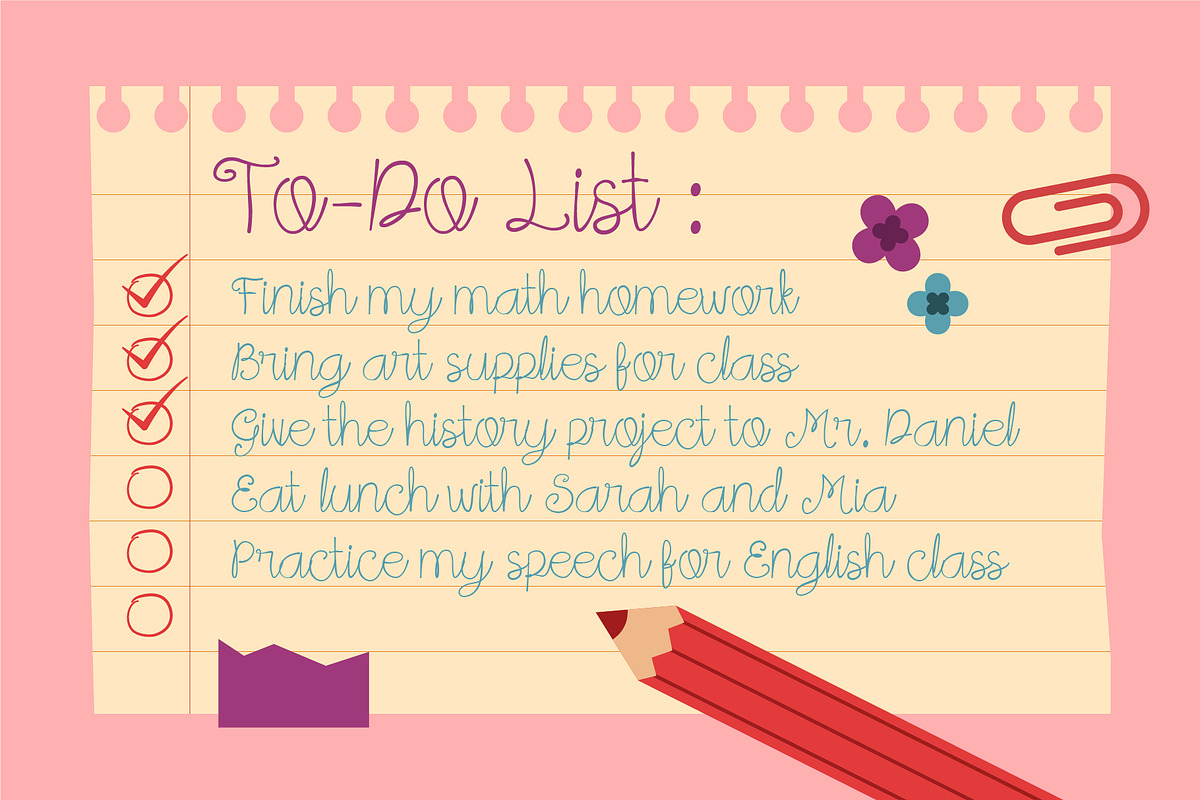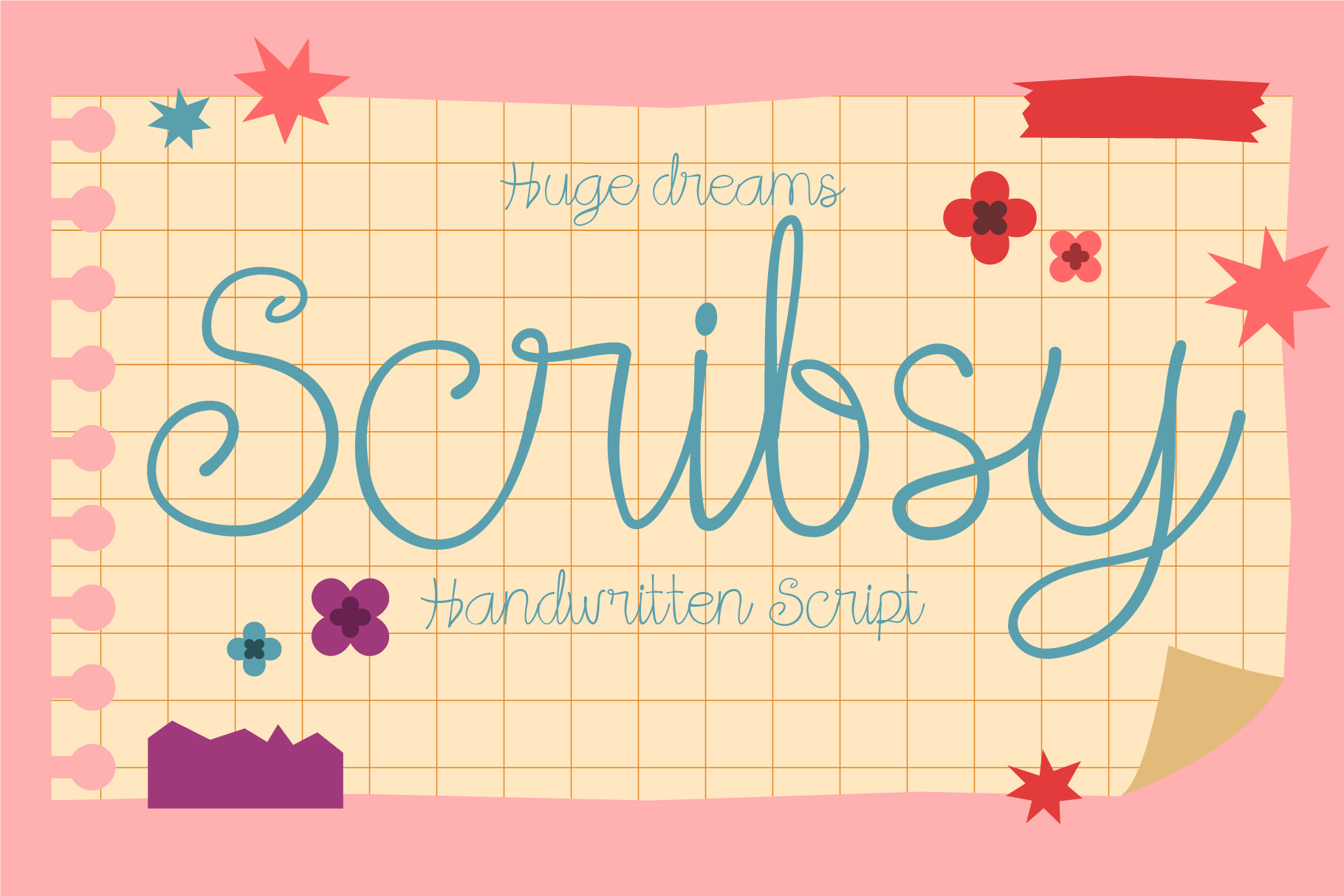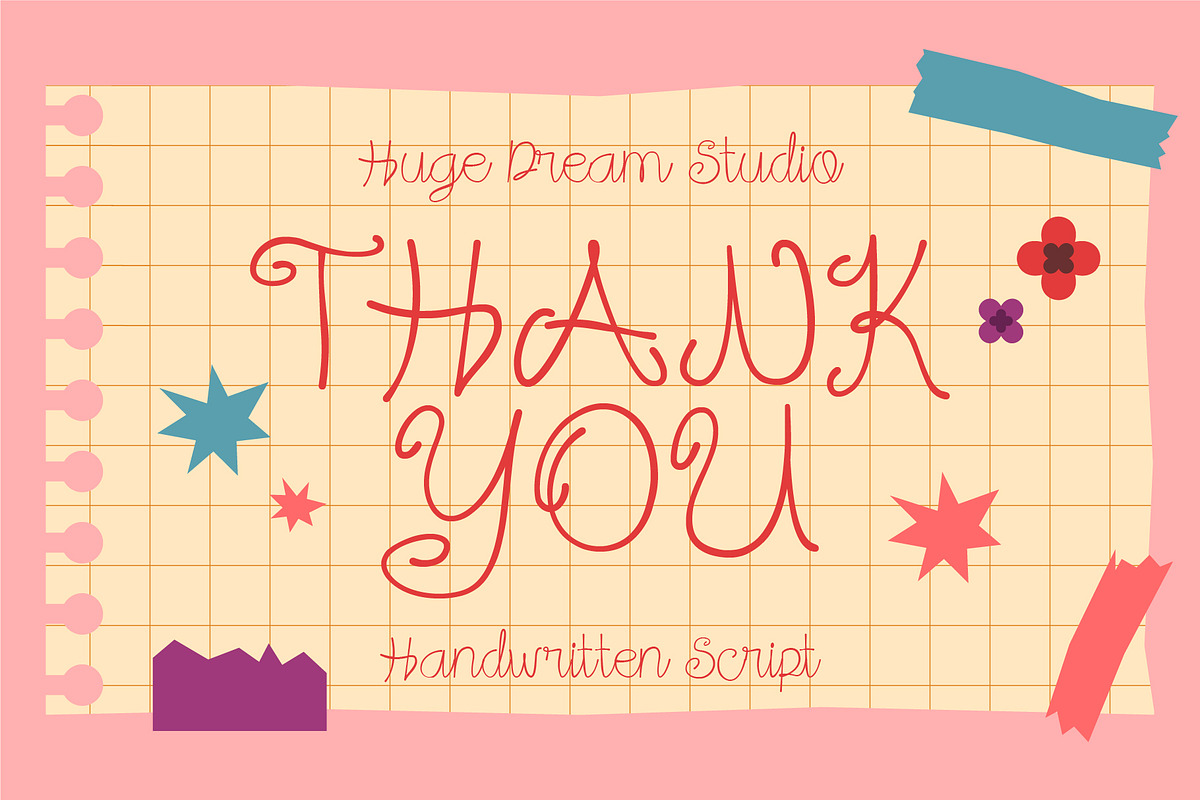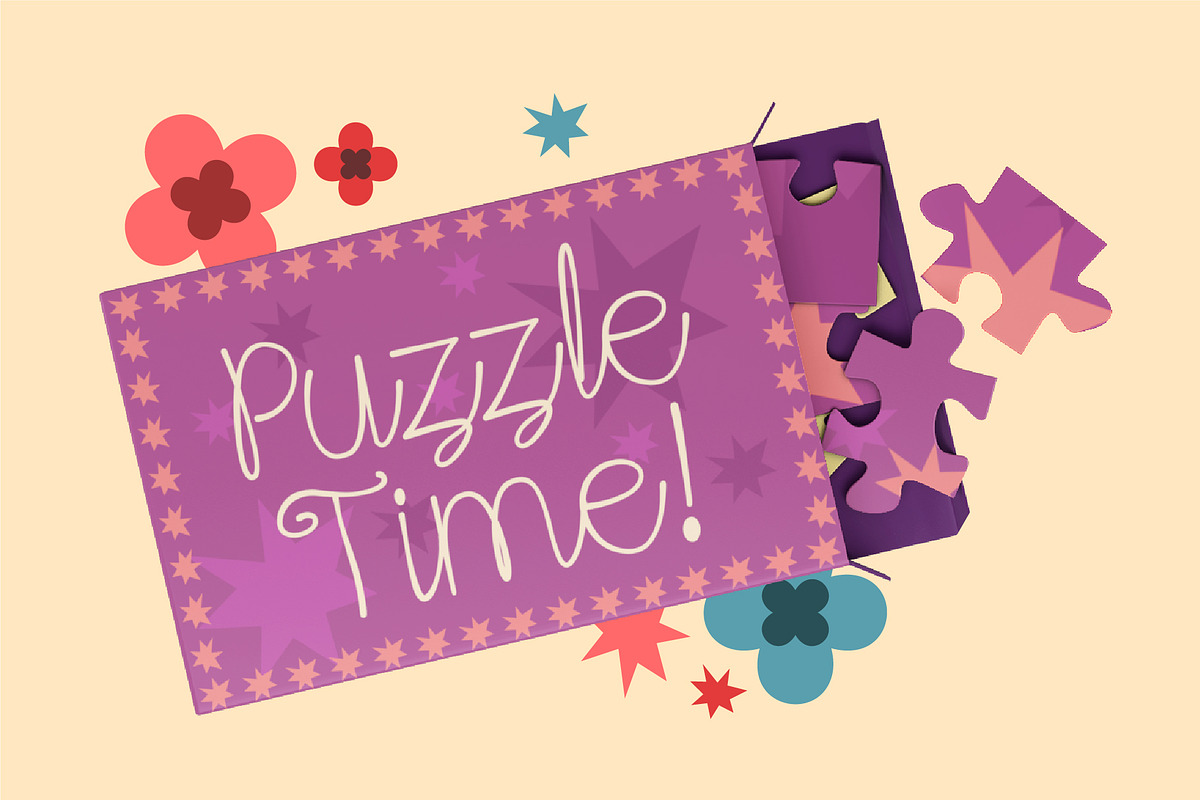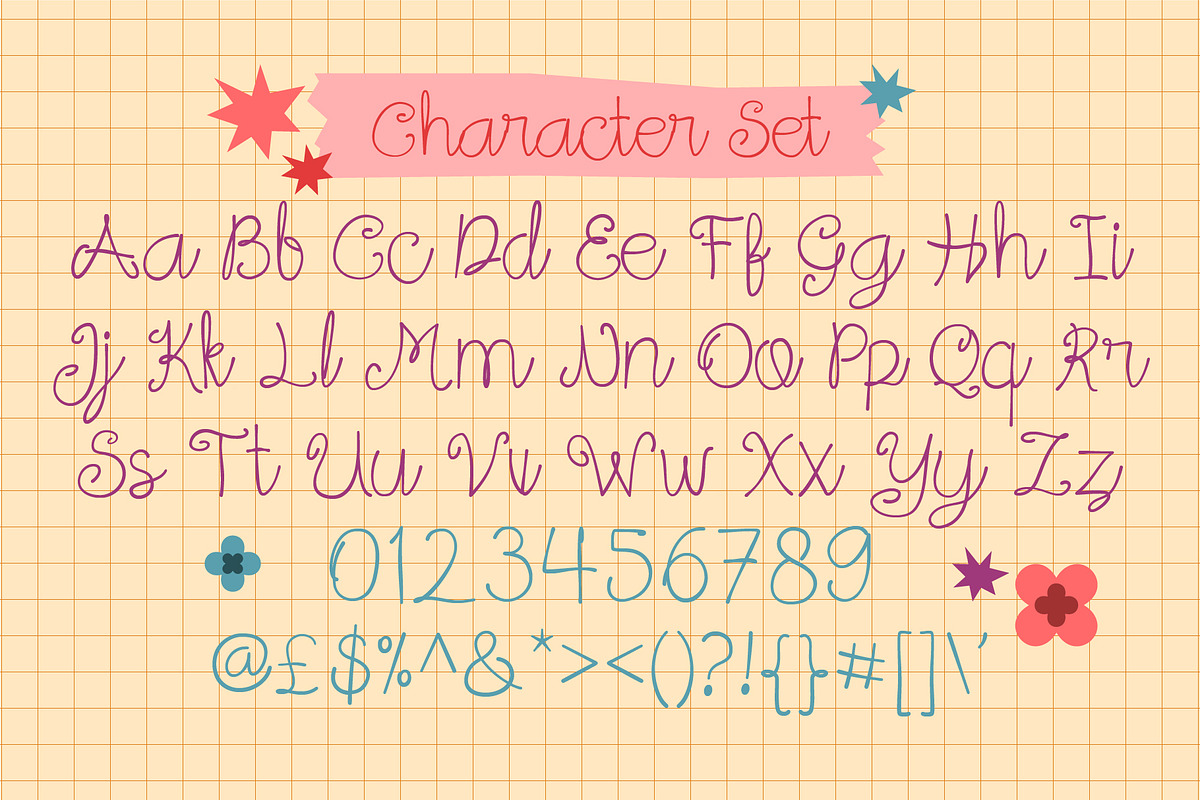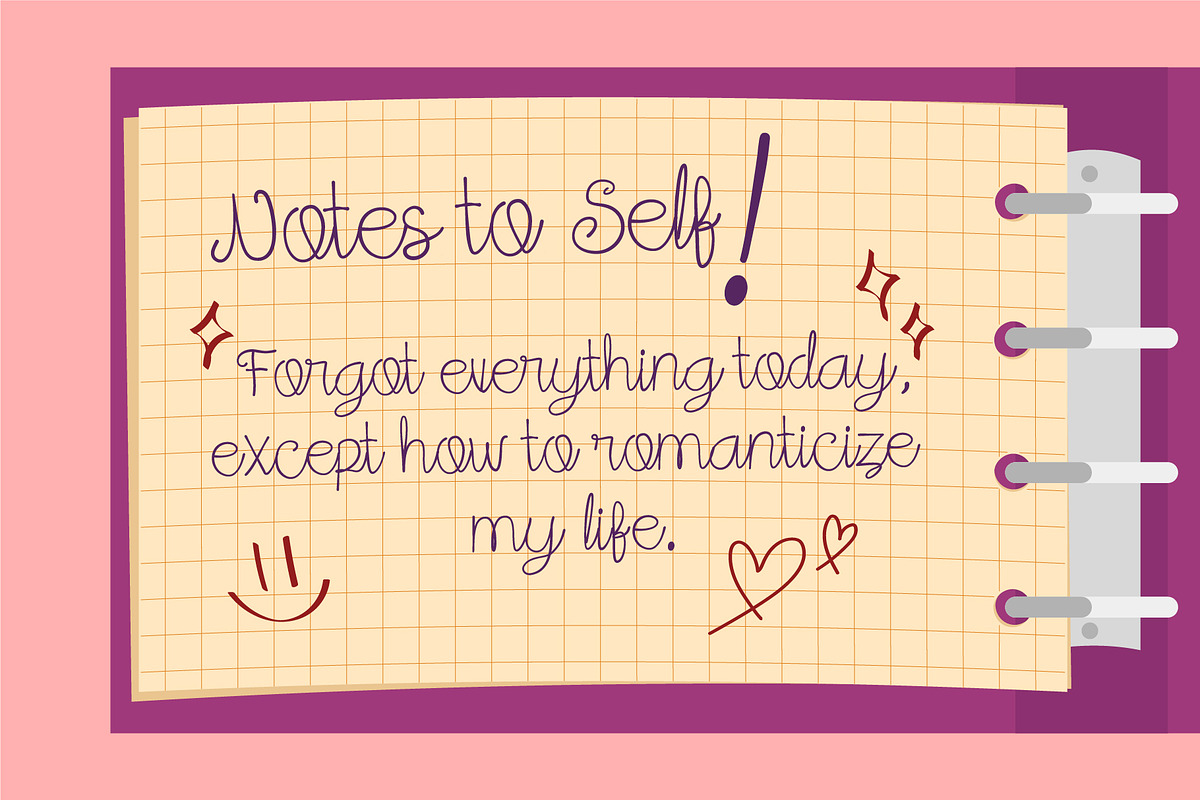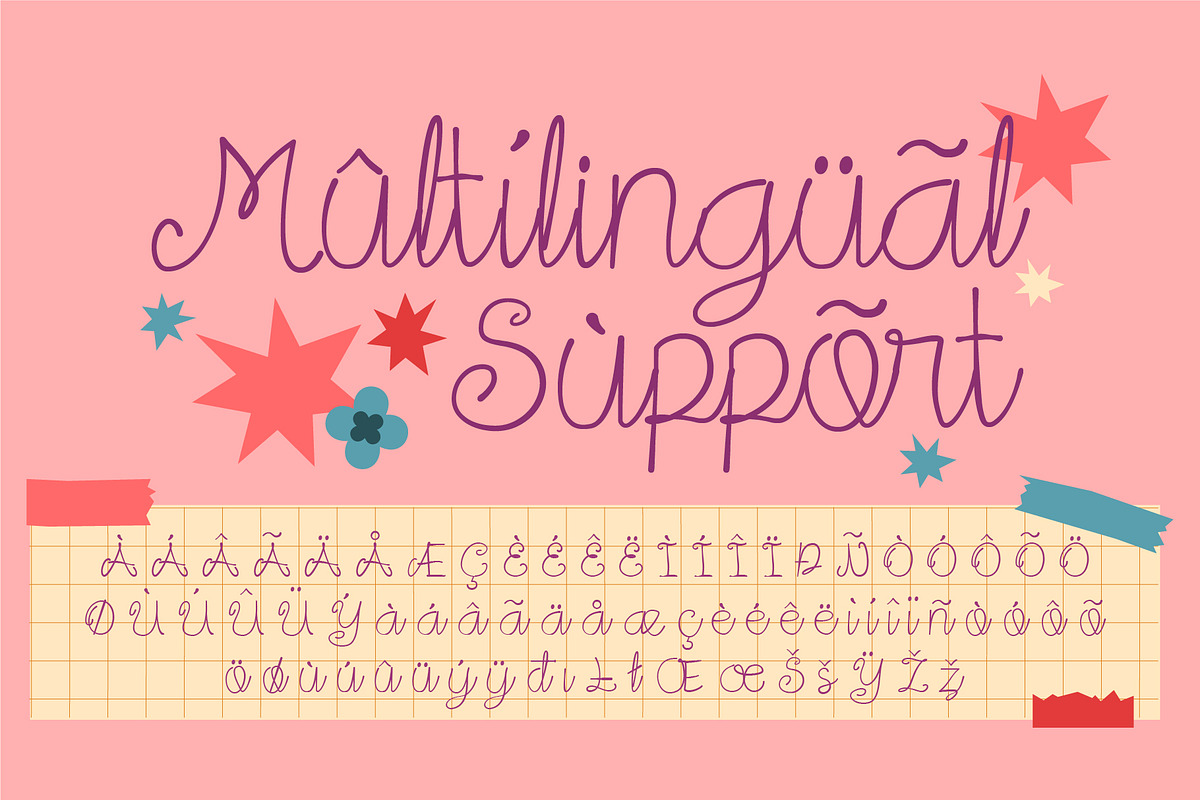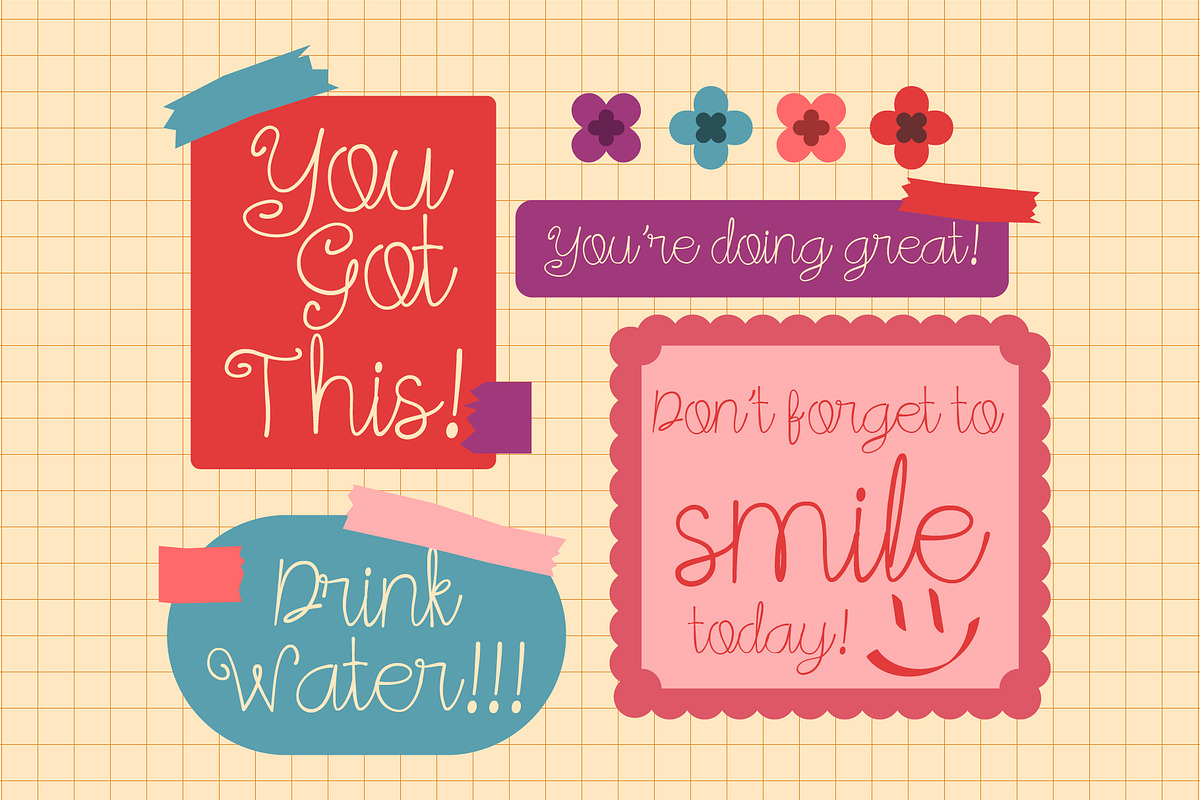
Scribsy – Handwritten Script Font
Scribsy – Handwritten Script Font is a playful and lively typeface that captures the charm of casual handwriting. With its smooth curves and energetic strokes, Scribsy brings a fun, approachable personality to any design. Perfect for invitations, quotes, social media graphics, logos, or any project that needs a touch of creativity and warmth, this font makes your text feel more personal and expressive. Its girly script style flow adds a cheerful vibe while remaining clear and versatile for both digital and print use.